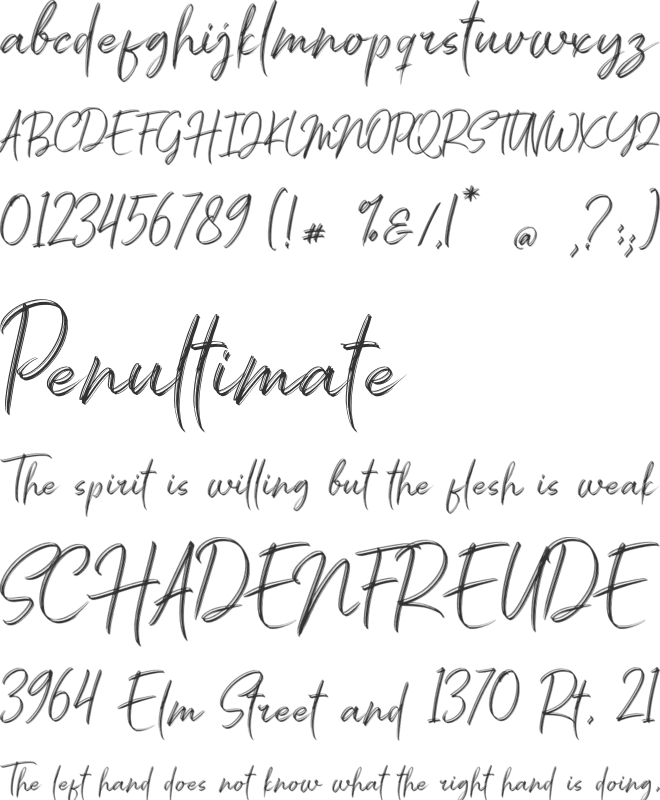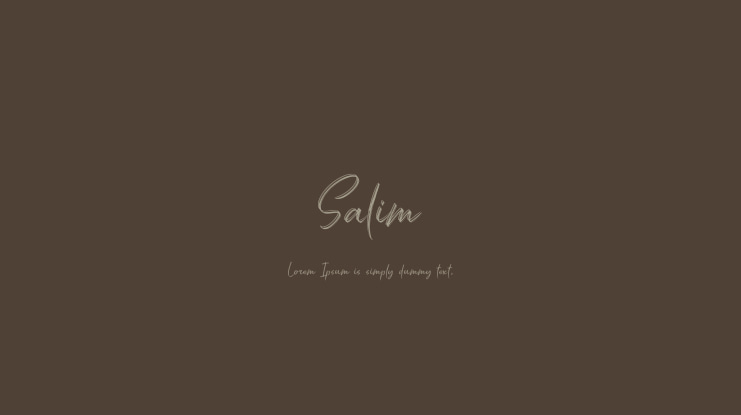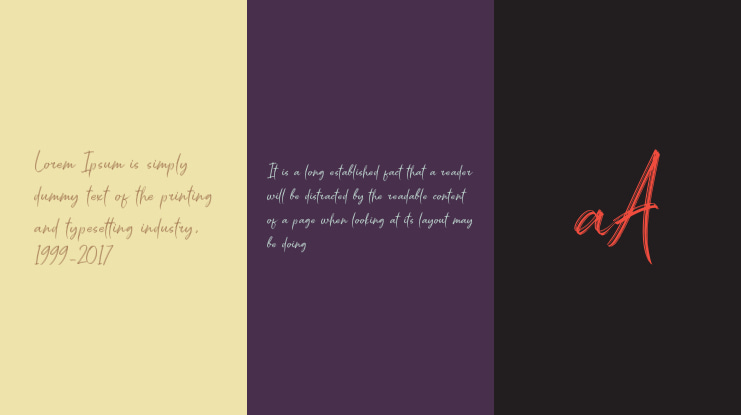
Salim Font
DETAILS Salim! A handwritten brush font with 2 styles, regular (brush texture) and solid. Salim font is perfect for branding, logotype, apparel, T-shirt, Hoodie, product packaging, quotes, flyer, poster.